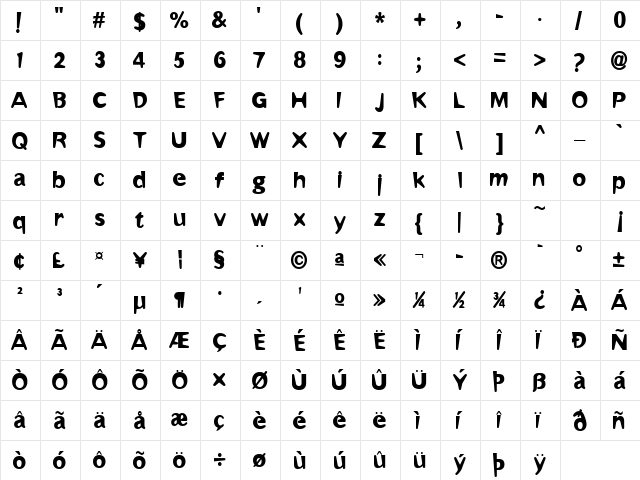
Omaha Bold Regular
Design Context for Omaha Bold Typeface
Omaha Bold is a composed and adaptable typeface that performs quietly and consistently across a wide range of design contexts. The heavy weight commands attention and anchors typographic hierarchies.